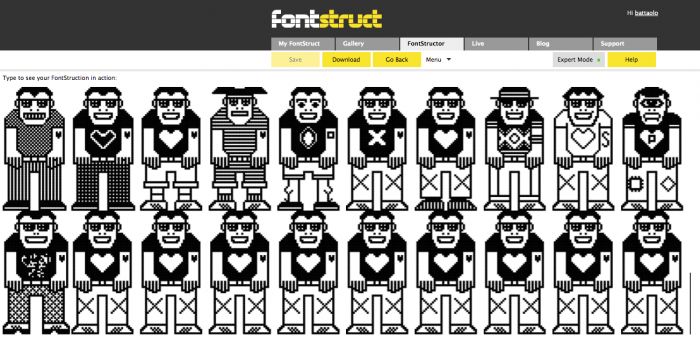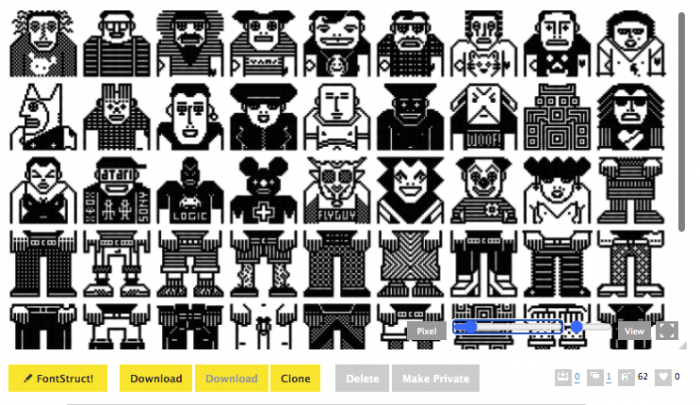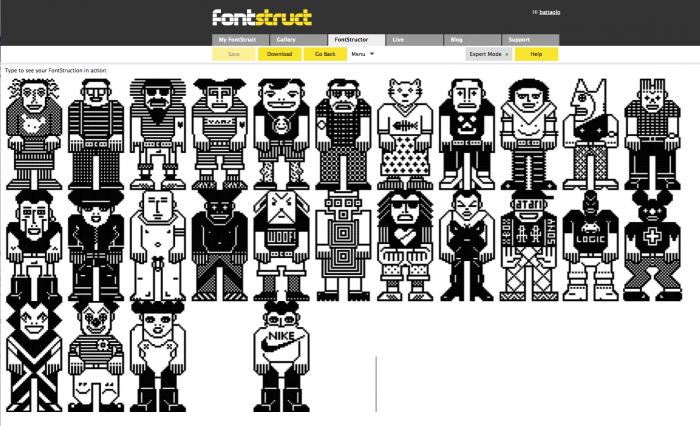
• A WIP based on the font PEECOL published in the 1990's by FontFont
The original was built on a 36 X 36 pixel grid but I've gone for a more flexible 36 X 36/7/8/9 grid. Some patterns work best on an even number grid, others on an odd number grid.
This where I am just now. Still a bit to do.
An extensive update to my original Peecol based font. I had abandoned this for a while but then decided to use it as a base for an update and in the end pretty much changed everything, except for some of the outlines.
Some more changes and additions